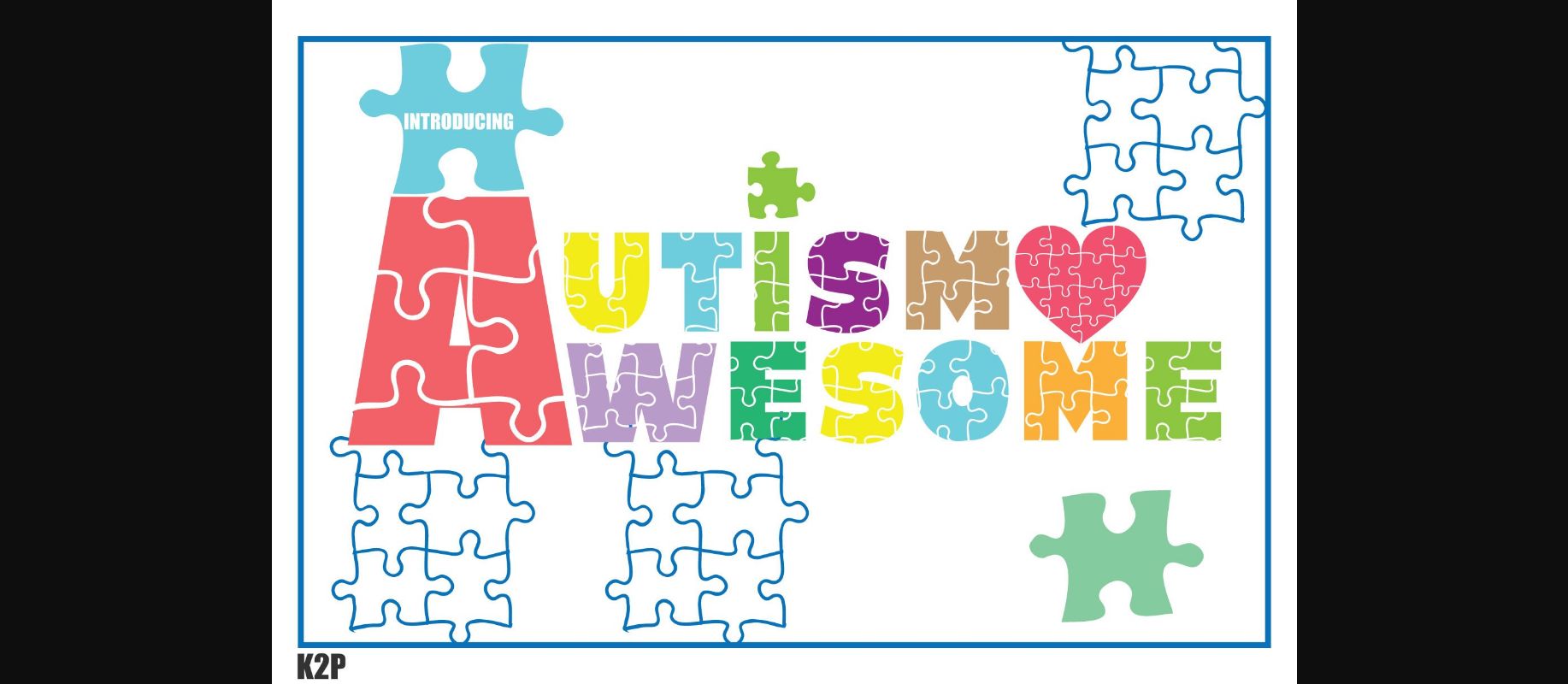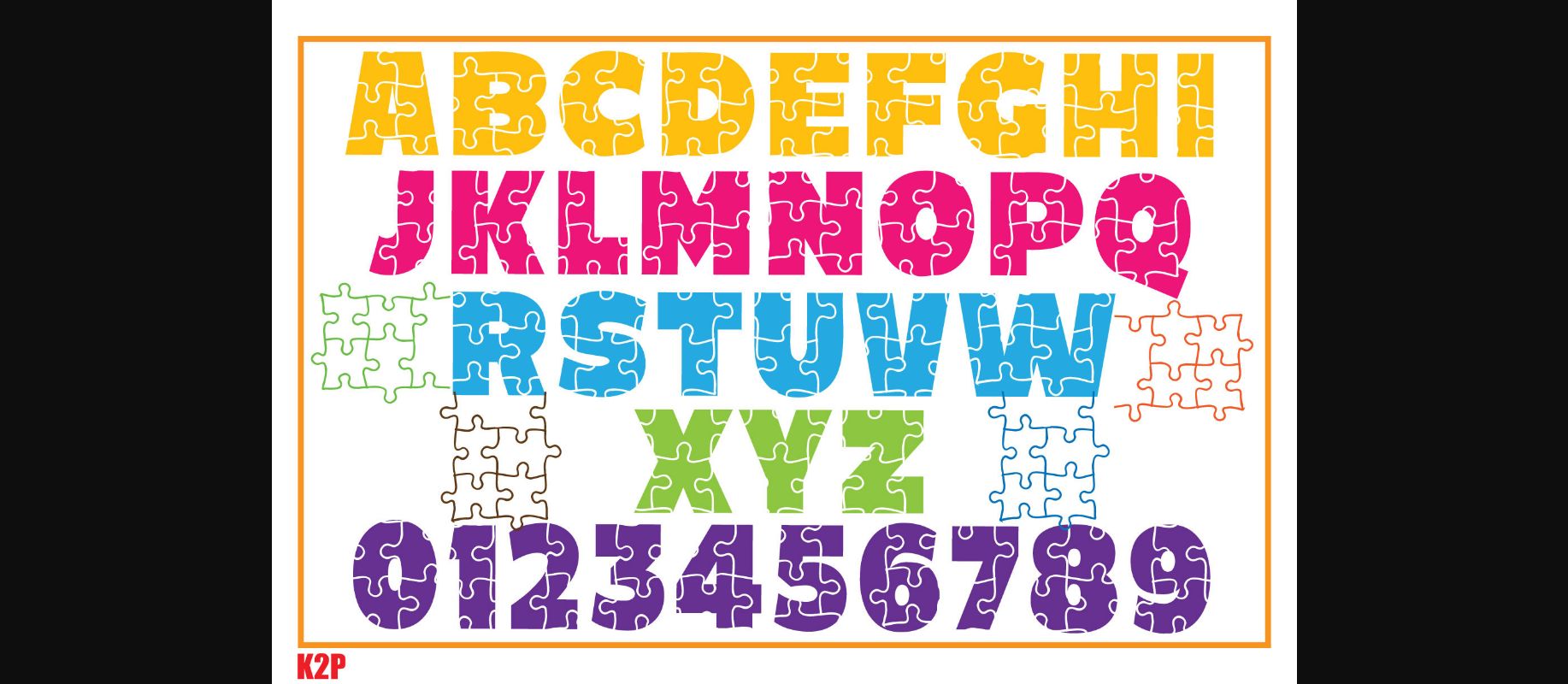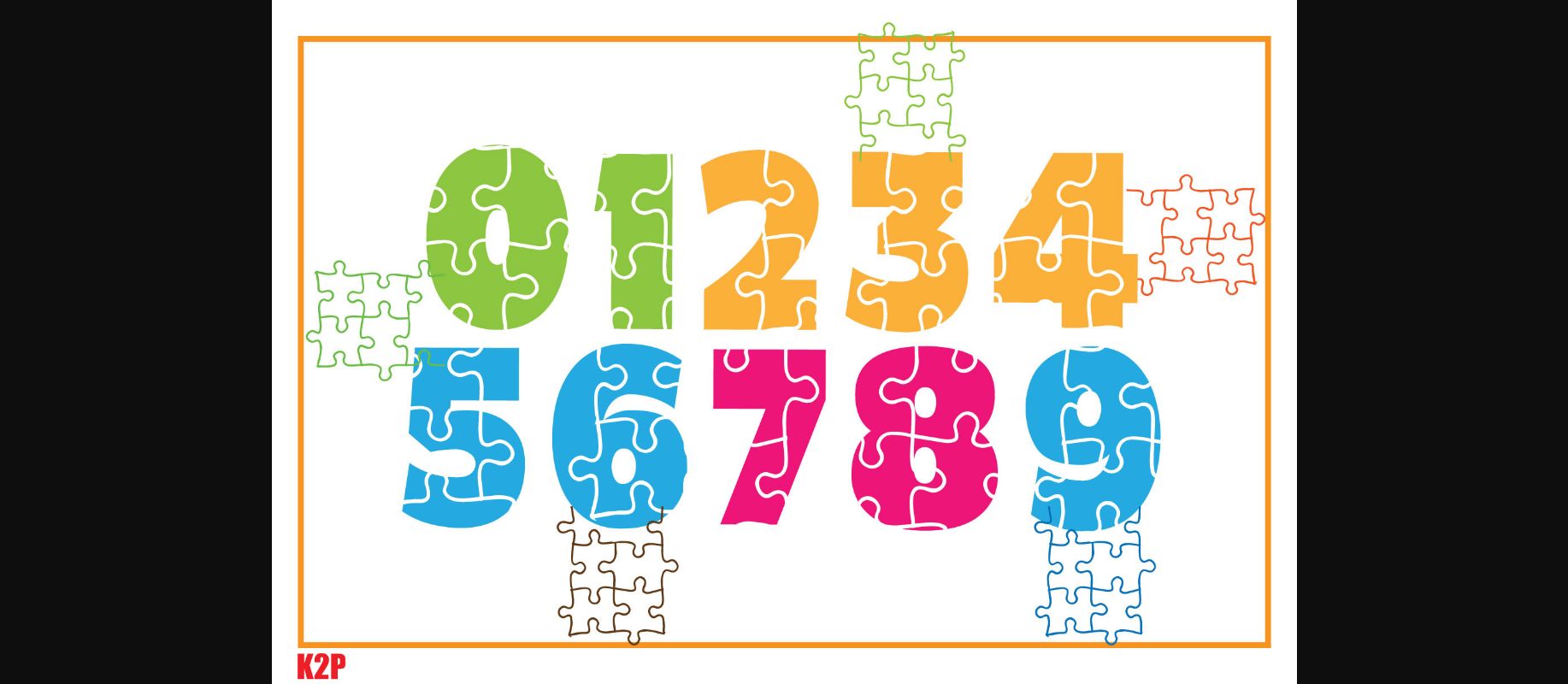
About Autism Awesome Font
Autism Awesome is a thick lettered and incredibly unique decorative font. It can be used for various design ideas, particularly those related to the projects that seek to bring support to people that are suffering from autism. This font is PUA encoded which means you can access all of the glyphs and swashes with ease!